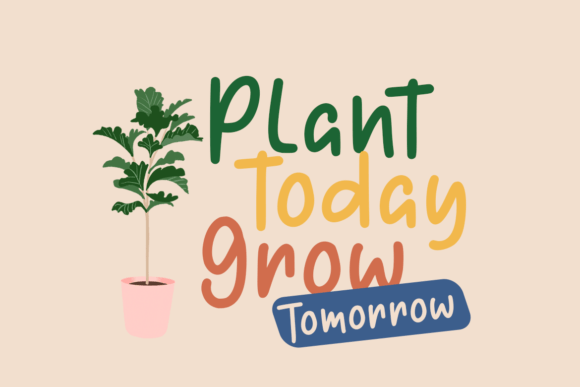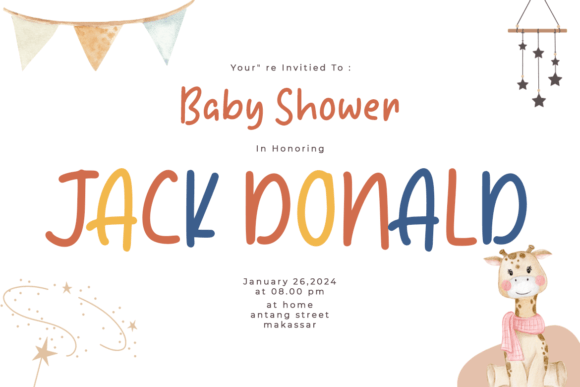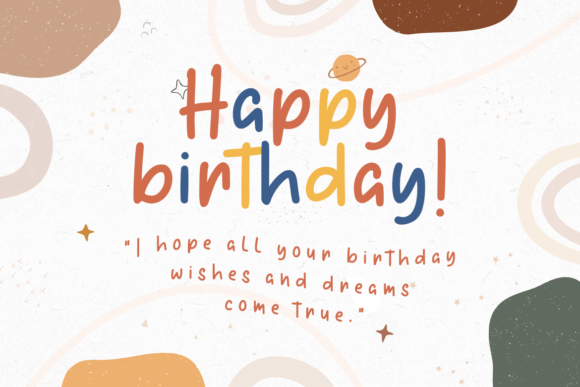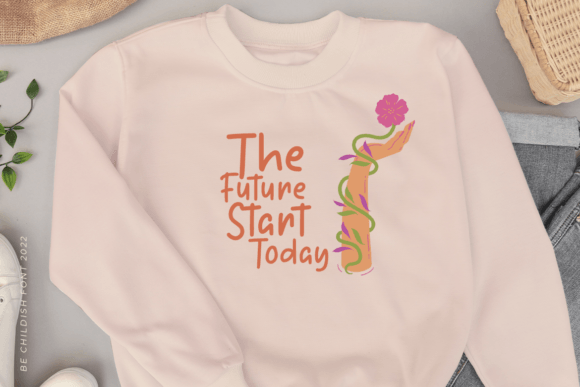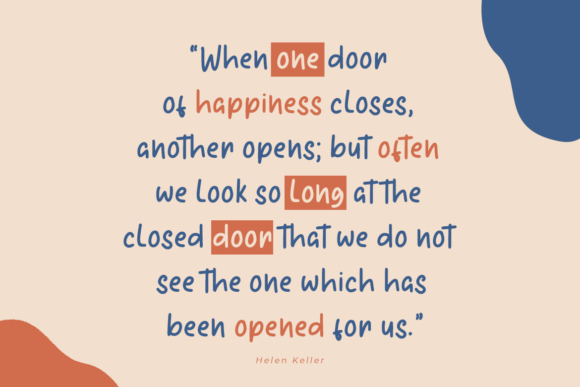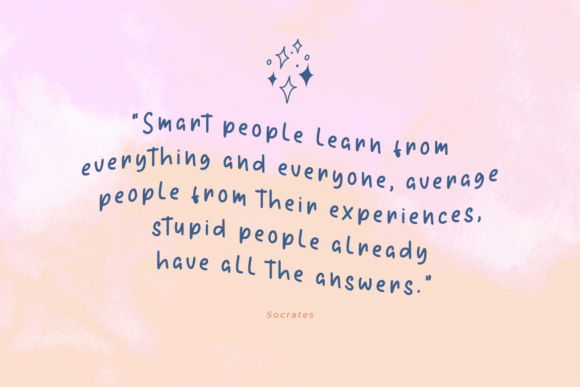
Introducing Be Childish Font: The Ultimate Playful Handwritten Font
Are you tired of using the same old fonts in your creative projects? Do you want to add a touch of playfulness and whimsy to your designs? Look no further than Be Childish Font, a versatile and stylish handwritten font that’s perfect for a wide range of applications. In this article, we’ll dive into the world of Be Childish Font and explore its features, benefits, and uses.
What is Be Childish Font?
Be Childish Font is a modern, handwritten font that’s designed to bring a sense of fun and playfulness to your designs. With its clean and exquisite feel, this font is perfect for creatives who want to add a touch of personality to their work. Whether you’re designing greeting cards, headlines, or any other type of project, Be Childish Font is sure to impress.
Key Features of Be Childish Font
- Playful and Whimsical: Be Childish Font has a playful and whimsical feel that’s perfect for designs that require a touch of fun and personality.
- Versatile: This font is versatile and can be used in a wide range of applications, from greeting cards to headlines, and more.
- Clean and Exquisite: Be Childish Font has a clean and exquisite feel that will give your designs a professional and polished look.
- Handwritten: This font is a handwritten font, which means it has a personal and unique touch that’s perfect for designs that require a human touch.
Benefits of Using Be Childish Font
So, why should you use Be Childish Font in your creative projects? Here are just a few benefits of using this amazing font:
- Adds Personality: Be Childish Font adds a touch of personality to your designs, making them stand out from the crowd.
- Perfect for Kids and Adults: This font is perfect for designs that require a playful and whimsical feel, making it suitable for both kids and adults.
- Easy to Read: Be Childish Font is easy to read, making it perfect for designs that require a clear and concise message.
- Customizable: This font is customizable, which means you can adjust it to fit your design needs.
Uses of Be Childish Font
Be Childish Font is perfect for a wide range of applications, including:
- Greeting Cards: Add a touch of playfulness to your greeting cards with Be Childish Font.
- Headlines: Use Be Childish Font to create eye-catching headlines that grab attention.
- Social Media Graphics: Add a touch of personality to your social media graphics with Be Childish Font.
- Logos: Use Be Childish Font to create unique and memorable logos.
- Invitations: Add a touch of whimsy to your invitations with Be Childish Font.
Tips for Using Be Childish Font
Here are a few tips for using Be Childish Font in your designs:
- Use it Sparingly: Use Be Childish Font sparingly to add a touch of personality to your designs.
- Pair it with Other Fonts: Pair Be Childish Font with other fonts to create a unique and interesting design.
- Adjust the Size: Adjust the size of Be Childish Font to fit your design needs.
In conclusion, Be Childish Font is a versatile, stylish, and playful handwritten font that’s perfect for a wide range of applications. With its clean and exquisite feel, this font is sure to add a touch of personality to your designs. Whether you’re a designer, crafter, or DIY enthusiast, Be Childish Font is a must-have font for your creative projects.